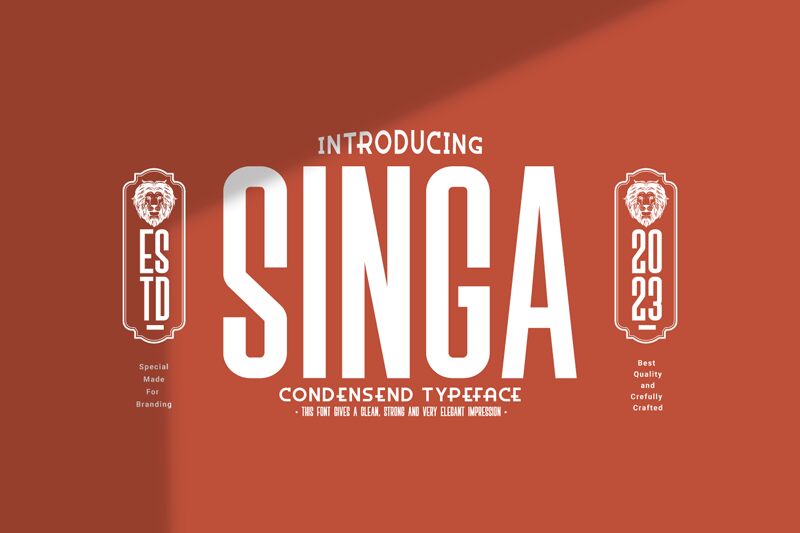
Singa, a captivating sans-serif font designed by Linecreative, exudes a refined and contemporary aesthetic. With its condensed width, this versatile font boasts striking letterforms that effortlessly command attention. The sharp, angular edges and clean lines create a sense of sophistication, while the overall balanced proportions lend a harmonious quality to any typographic composition.
Singa's versatility shines through, making it a versatile choice for a wide range of design applications. Its bold, impactful presence lends itself well to eye-catching headings, captivating branding, and dynamic digital interfaces. Whether crafting sleek and modern packaging, crafting compelling editorial layouts, or elevating the visual identity of a forward-thinking business, Singa's distinctive character is sure to leave a lasting impression.
Singa